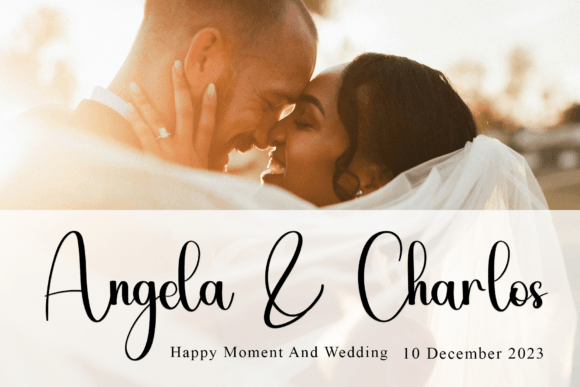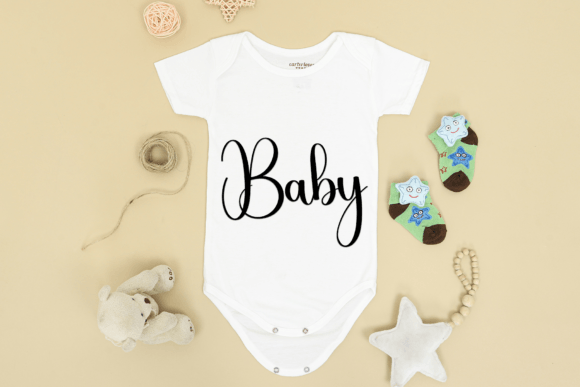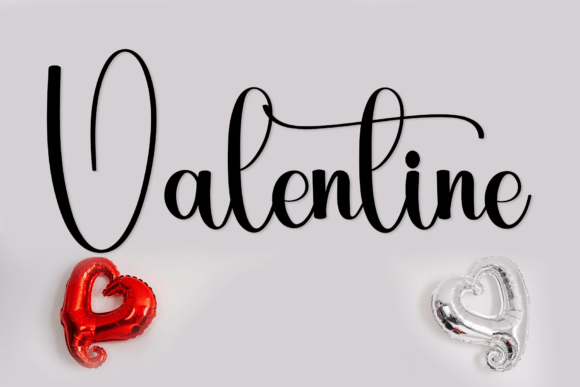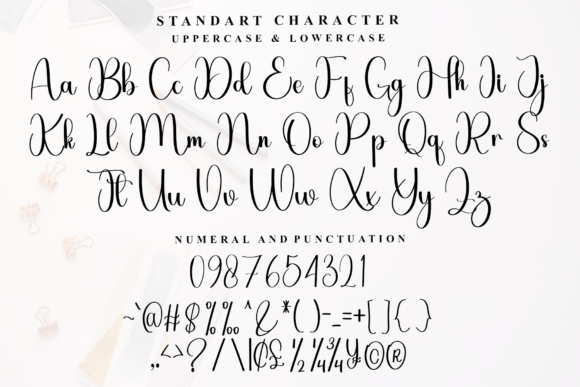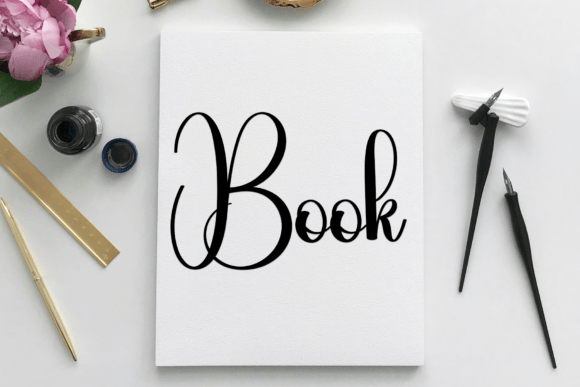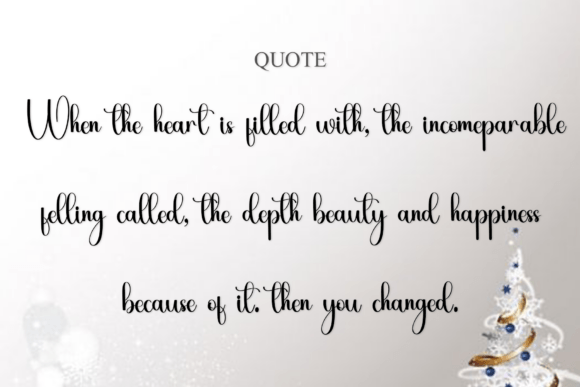
Heaven Beautiful Font: Elevate Your Designs with Elegance
Are you on the hunt for a font that exudes sophistication, elegance, and a touch of modern flair? Look no further than the Heaven Beautiful Font. This exquisite handwritten font is designed to capture the hearts of designers and crafters alike, and for good reason. With its perfect blend of classy calligraphic influences and contemporary freshness, Heaven Beautiful is poised to become your new favorite font.
Handwritten fonts have a unique charm that can instantly elevate a design from ordinary to extraordinary. They add a personal touch, conveying emotion and character in a way that digital fonts often can’t. The Heaven Beautiful Font takes this concept to new heights, boasting an intricate, hand-crafted aesthetic that’s both refined and approachable.
What Makes Heaven Beautiful Stand Out
- Classy Calligraphic Influences: Heaven Beautiful draws inspiration from traditional calligraphy, giving it an air of sophistication and luxury. Each letter is carefully crafted to showcase beautiful swashes and flourishes, perfect for adding a touch of elegance to any project.
- Contemporary and Fresh: While deeply rooted in calligraphic traditions, Heaven Beautiful also feels remarkably modern. Its clean lines, balanced proportions, and clever use of negative space ensure it fits seamlessly into contemporary designs.
- Versatility: Whether you’re working on a wedding invitation, a brand identity, or a packaging design, Heaven Beautiful adapts effortlessly. Its versatility is one of its most compelling features, making it suitable for a wide range of applications.
Using Heaven Beautiful in Your Projects
So, how can you incorporate Heaven Beautiful into your designs? The possibilities are endless. Here are a few ideas to get you started:
- Wedding and Event Stationery: Create stunning wedding invitations, save-the-date cards, and event programs that set the tone for a sophisticated celebration.
- Branding and Packaging: Elevate your brand with a luxurious logo or packaging design that showcases Heaven Beautiful’s elegant charm.
- Digital and Print Media: Use Heaven Beautiful in your digital content, such as blog headers, social media graphics, and email newsletters, or in print materials like brochures, flyers, and posters.
Why Designers and Crafters Love Heaven Beautiful
Designers and crafters are drawn to Heaven Beautiful for a variety of reasons:
- Easy to Read: Despite its ornate appearance, Heaven Beautiful is remarkably legible, making it suitable for both headlines and body text.
- Customizable: With its extensive range of swashes and alternates, you can customize Heaven Beautiful to fit your project’s unique needs.
In the world of fonts, few are as captivating as Heaven Beautiful. Its unique blend of traditional calligraphy and modern sensibilities makes it a standout choice for designers and crafters looking to add a touch of elegance to their projects. With its versatility, readability, and customization options, Heaven Beautiful is poised to become an indispensable part of your design toolkit. So why wait? Fall in love with Heaven Beautiful and bring your projects to new heights of sophistication and style.